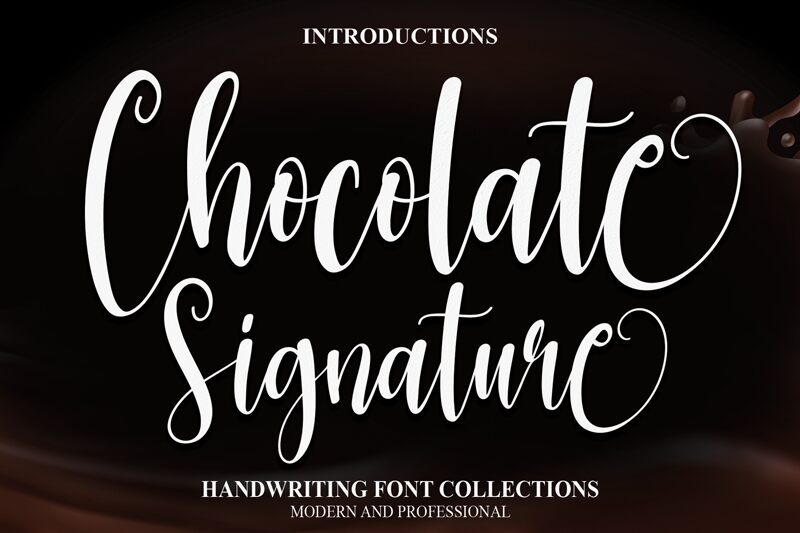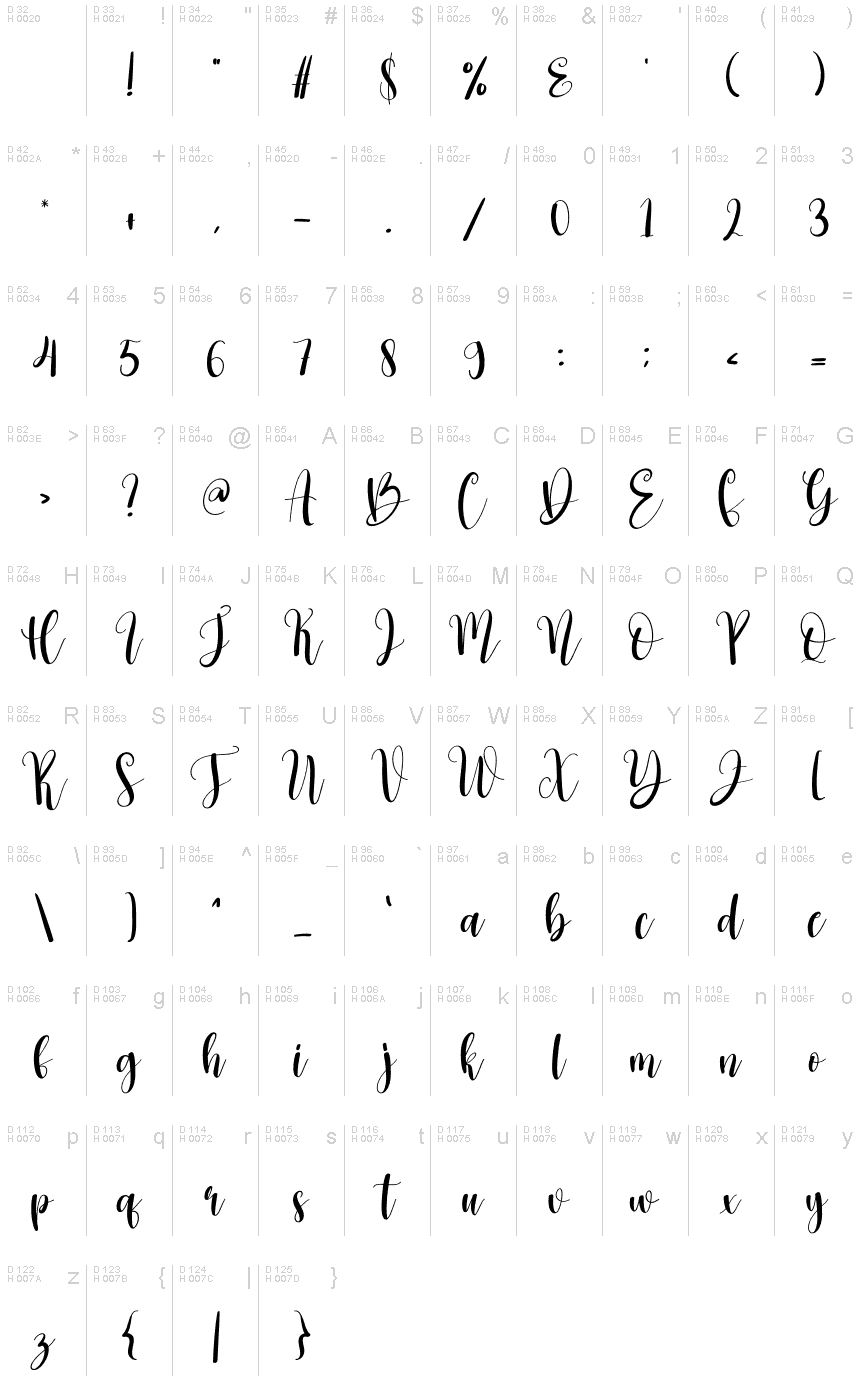
Chocolate Signature
The Chocolate Signature font by scratchones adds a touch of elegance and sophistication to any project with its beautiful calligraphic style. Its semi-light weight and semi-condensed width make it perfect for use in a variety of applications, including wedding invitations, branding materials, and social media graphics. This versatile font is sure to make an impression on any audience, whether used in print or digital form. Elevate your designs with the luxurious feel of Chocolate Signature – the perfect choice for any project that demands a touch of class.
the latest style letters are perfect for wall displays, wedding invitations, social media post logos,
advertisements, product packaging, product designs, labels, photography, watermarks, invitations, stationery,
and any project that requires taste handwriting.